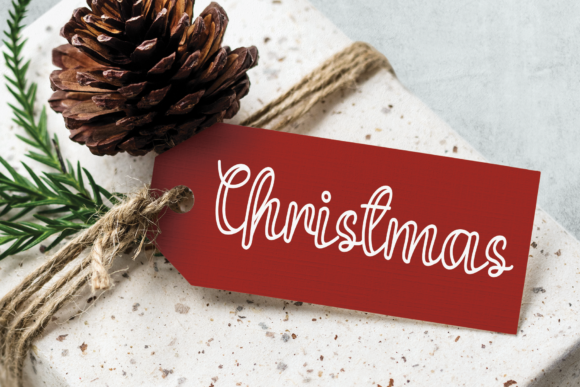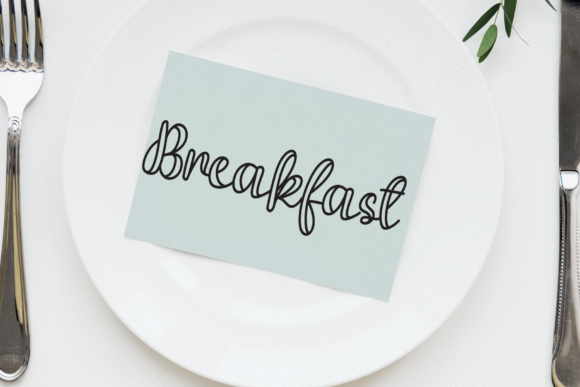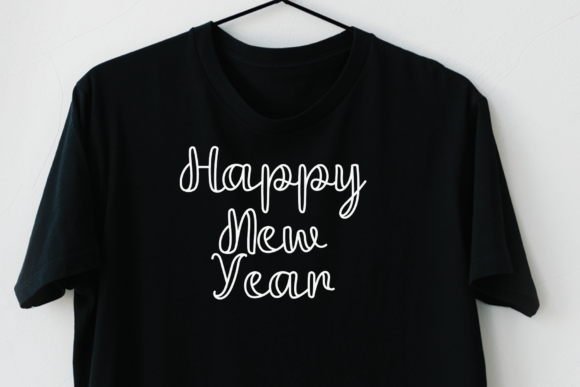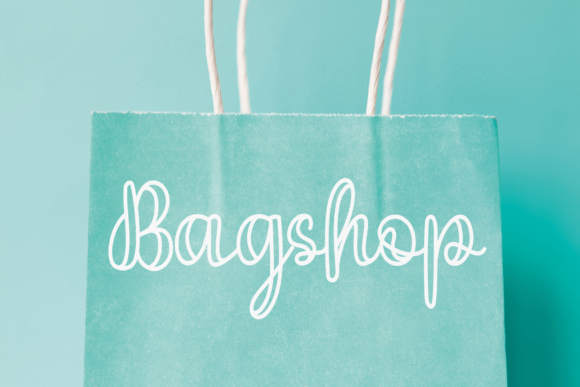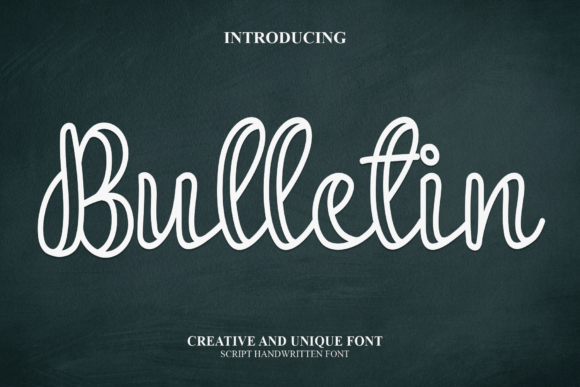
Introducing Bulletin Font: Elevate Your Designs with a Contemporary Script
In the world of typography, a font can make or break a design. For designers and crafters looking to add a touch of elegance and modernity to their projects, the Bulletin Font is an excellent choice. This distinct script font boasts a contemporary feel and perfect form, making it an ideal addition to any creative endeavor.
Balanced and Varied: The Unique Characteristics of Bulletin Font
One of the standout features of the Bulletin Font is its balanced and varied design. Not too thin and not too bold, this font strikes the perfect chord between elegance and readability. The balanced nature of the font ensures that it can be used in a variety of contexts, from headings and titles to body text and captions.
The varied design elements of the Bulletin Font add a layer of sophistication to any project. With its unique blend of classic and modern elements, this font is sure to capture the attention of your audience and leave a lasting impression.
The Bulletin Font is a versatile design asset that can be used in a wide range of creative projects. Whether you’re a designer working on a branding campaign, a crafter creating handmade cards and invitations, or a digital artist looking to add some personality to your artwork, this font is sure to become a go-to choice.
For designers, the Bulletin Font offers a fresh alternative to traditional serif and sans-serif fonts. Its contemporary feel and script style make it perfect for projects that require a touch of elegance and sophistication.
For crafters, the Bulletin Font provides a beautiful and unique way to add personality to handmade projects. From custom invitations and greeting cards to DIY signs and posters, this font is sure to elevate your creations and make them stand out.
Key Features of the Bulletin Font
• Contemporary feel: The Bulletin Font boasts a modern and fresh design that’s perfect for projects that require a touch of sophistication.
• Balanced and varied: The font’s balanced nature and varied design elements make it versatile and easy to use in a variety of contexts.
• Script style: The Bulletin Font features a beautiful script style that’s perfect for adding a touch of elegance to your projects.
• Perfect form: The font’s design is carefully crafted to ensure that it looks great in any context, from digital displays to print materials.
Tips for Using the Bulletin Font
To get the most out of the Bulletin Font, here are a few tips to keep in mind:
• Use it as a headline font: The Bulletin Font is perfect for headings and titles, where its bold and elegant design can really shine.
• Pair it with a sans-serif font: For body text and captions, consider pairing the Bulletin Font with a clean and simple sans-serif font to create a beautiful contrast.
• Experiment with colors: The Bulletin Font looks great in a variety of colors, so don’t be afraid to experiment and find the perfect hue for your project.
In conclusion, the Bulletin Font is a beautiful and versatile design asset that’s perfect for designers and crafters looking to add a touch of elegance and modernity to their projects. With its contemporary feel, balanced and varied design, and script style, this font is sure to become a go-to choice for anyone looking to elevate their creative endeavors.
Whether you’re working on a branding campaign, creating handmade cards and invitations, or simply looking for a fresh font to add some personality to your digital artwork, the Bulletin Font is an excellent choice. So why not give it a try and see how it can enhance the beauty of your projects?